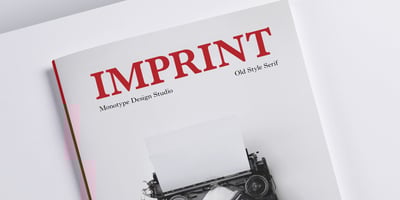
Imprint
Imprint font
Imprint Font Family was designed by Monotype Design Studio and published by Monotype. Imprint contains 6 styles and family package options. In 1912 Gerard Meynell, with J.H. Mason, Ernest Jackson and Edward Johnston, commissioned this large x-height typeface modelled on Caslon’s designs from Pierpont and the Monotype Corporation as the text face for The Imprint, a short-lived magazine about fine printing and typography.